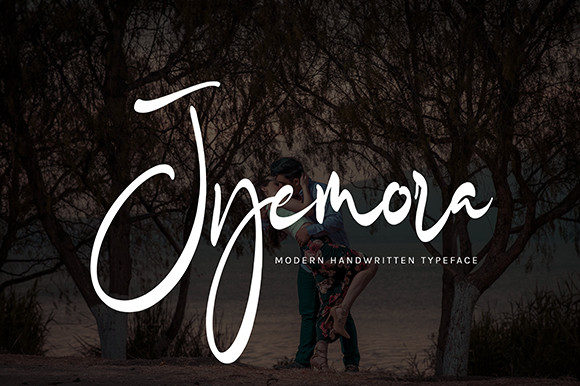
Jyemora Font
About Jyemora Font
Jyemora is a delicate and script font. It will be perfect for many different projects such as quotes, logo, blog header, poster, banding, letter, invitation, stationery, and more. This font is PUA encoded, which means you can access all of the glyphs and swashes with ease!